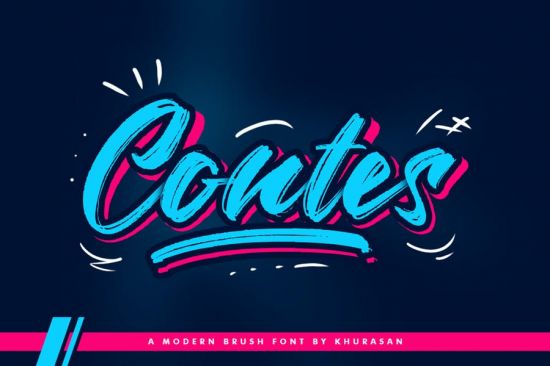
The Contes is a fresh brush font, elegant and modern feel character set. The Contes font as well as multi-lingual support, swashes, uppercase, lowercase, numerals, & punctuation.